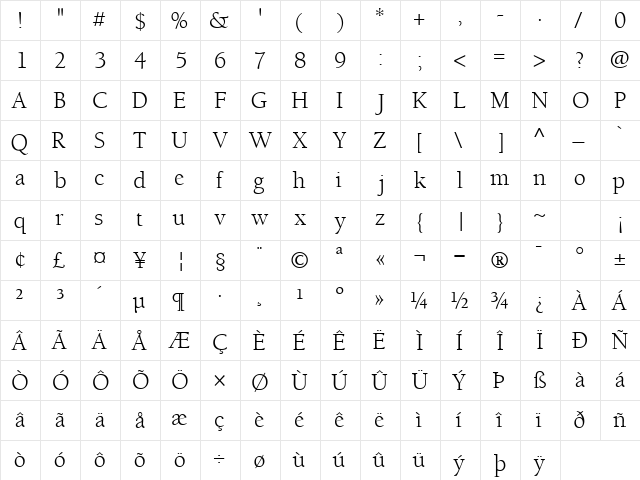
BerkeleyRetrospectiveBookSSK Regular
Design Context for BerkeleyRetrospectiveBookSSK Typeface
BerkeleyRetrospectiveBookSSK wears its vintage influences proudly, with letterforms that recall mid-century signage, classic packaging, and nostalgia-driven design.
Font Pairing: Combine BerkeleyRetrospectiveBookSSK with a simple slab or neutral sans — period-accurate companions reinforce the vintage feel without competing for attention.
Pro Tip: Use BerkeleyRetrospectiveBookSSK for headlines and pull quotes rather than body copy — its personality is best appreciated in short, focused bursts.